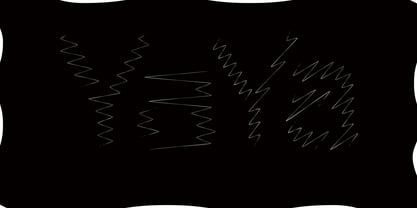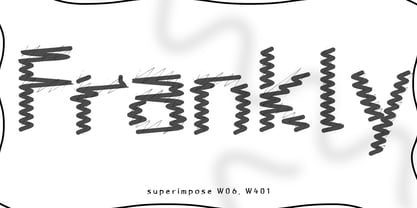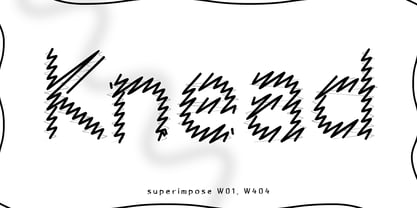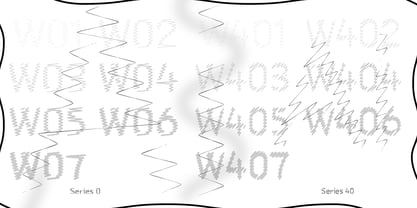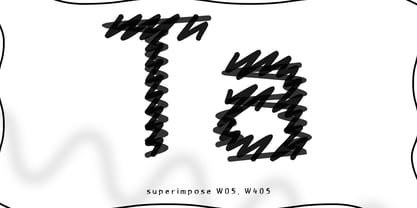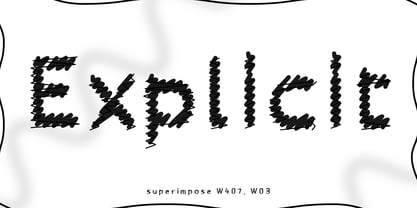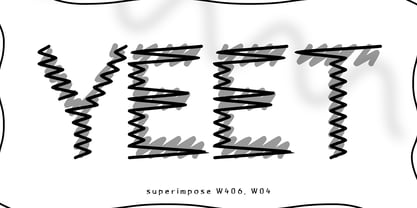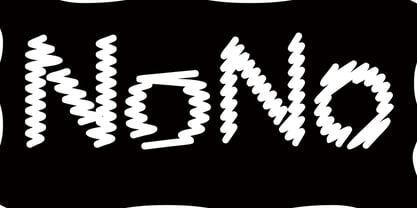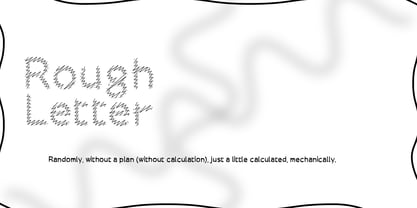
Rough Letter
The Rough Letter Font Family was designed by Shuji Kikuchi and published by sugargliderz. Rough Letter contains 14 styles and family package options. More about this family
This typeface was developed with the concept of drawing letters rather than writing them—intentionally rough, yet with a recognizable sense of structure.
It is designed for layered use, combining styles from the 0 Series and the 40 Series. For instance, a thin weight from the 0 Series can be paired with a bold weight from the 40 Series, or even two weights of the same thickness. By exploring different combinations and contrasts, users can create over 40 distinct visual expressions.
This font is ideal for emphasizing key words—such as book titles, motion graphics title sequences, promotional copy on flyers, or standout elements on T-shirts. Simply inputting text can result in logo-like impact. It is especially effective when used at larger sizes to maximize its visual impact.
About sugargliderz
sugargliderz is a small private foundry that started its activities in 2006. I make fonts every day based on the principle of giving shape to the things I am interested in. I don't see letters as something to design, but as something to shape. I create fonts by giving importance to "numerical values," "senses," and "coincidences. Of course, if someone somewhere likes it and uses it, I am very happy. But I always deviate from the standard way of thinking, somehow.